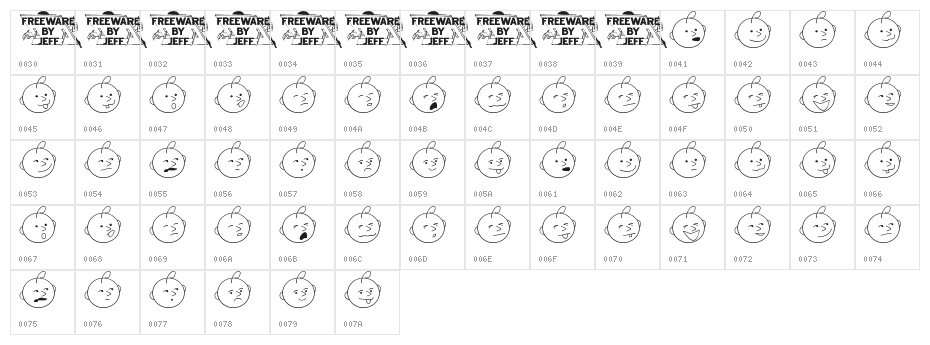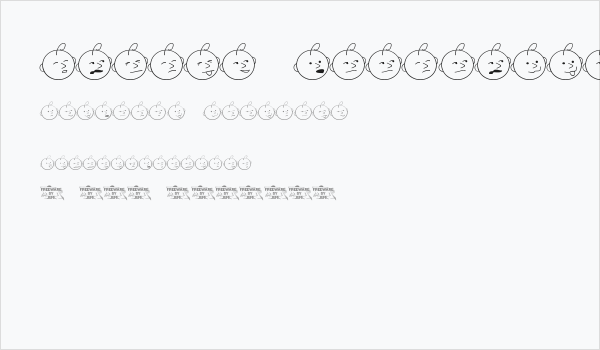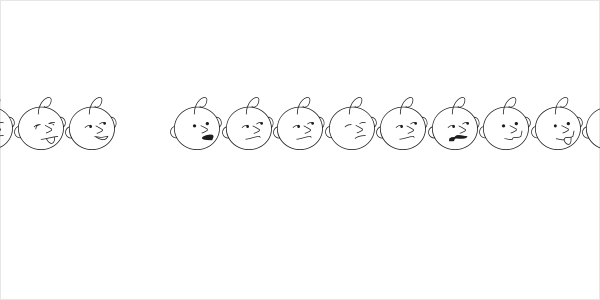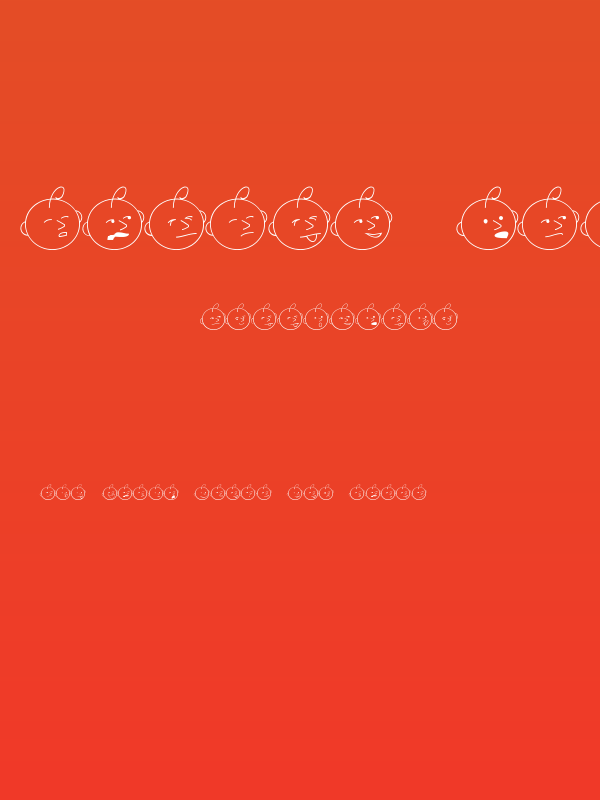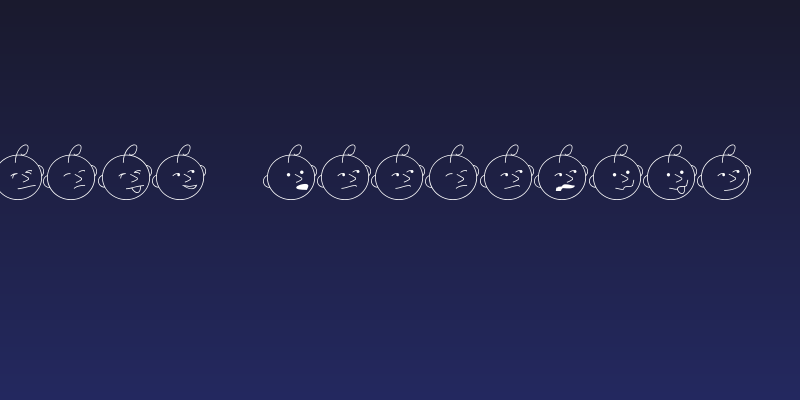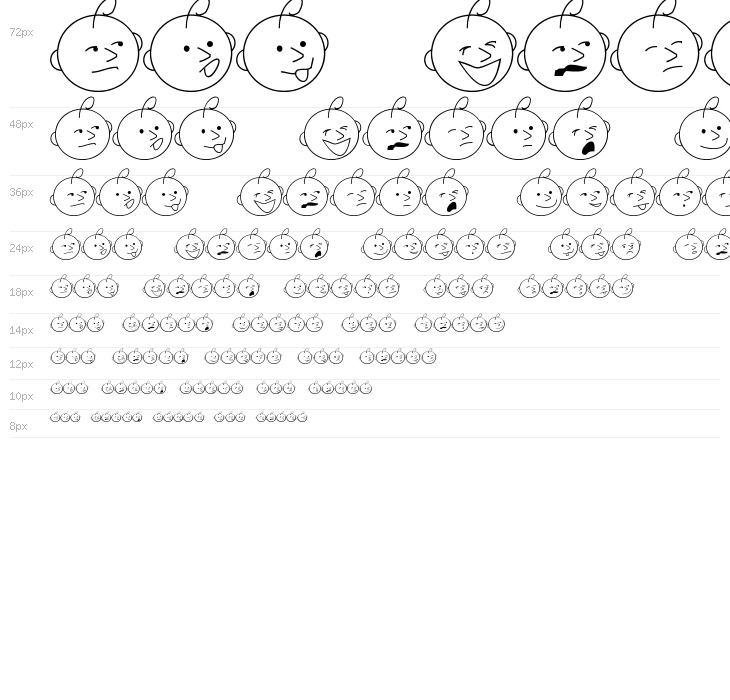
Junior Attitudes JL Font
Junior Attitudes JL Description
This font is a playful and whimsical collection of emotive faces, each character represented by a unique expression. The design is characterized by simple, rounded shapes with minimalistic features that convey a wide range of emotions. The faces are enclosed in circular outlines, giving a uniform appearance across the set. This font is ideal for projects that require a fun and engaging visual element, such as children's books, playful branding, or creative digital content. The consistent style across all characters ensures a cohesive look, while the variety of expressions adds a dynamic and lively touch.
| Use Case | Decorative elements, Creative projects, Children's materials |
| Proposed Projects | Children's books, playful branding, creative digital content, educational materials. |